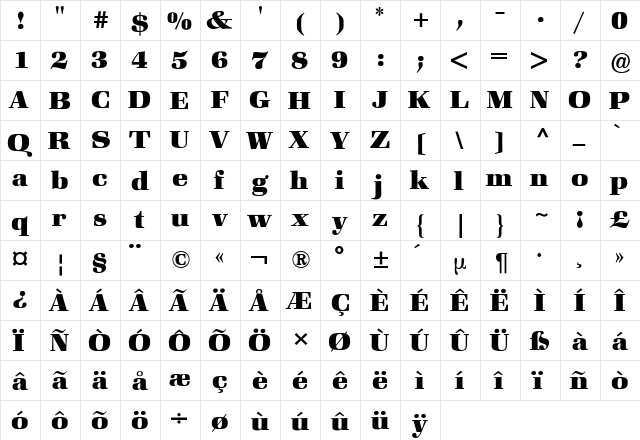
Zapf Book BQ Regular
Design Context for Zapf Book BQ Typeface
Zapf Book BQ offers clean, dependable letterforms without strong stylistic allegiance, making it a practical choice for designers who need flexibility.
Pro Tip: Pair Zapf Book BQ with a font of contrasting weight or personality to build a more expressive typographic hierarchy.